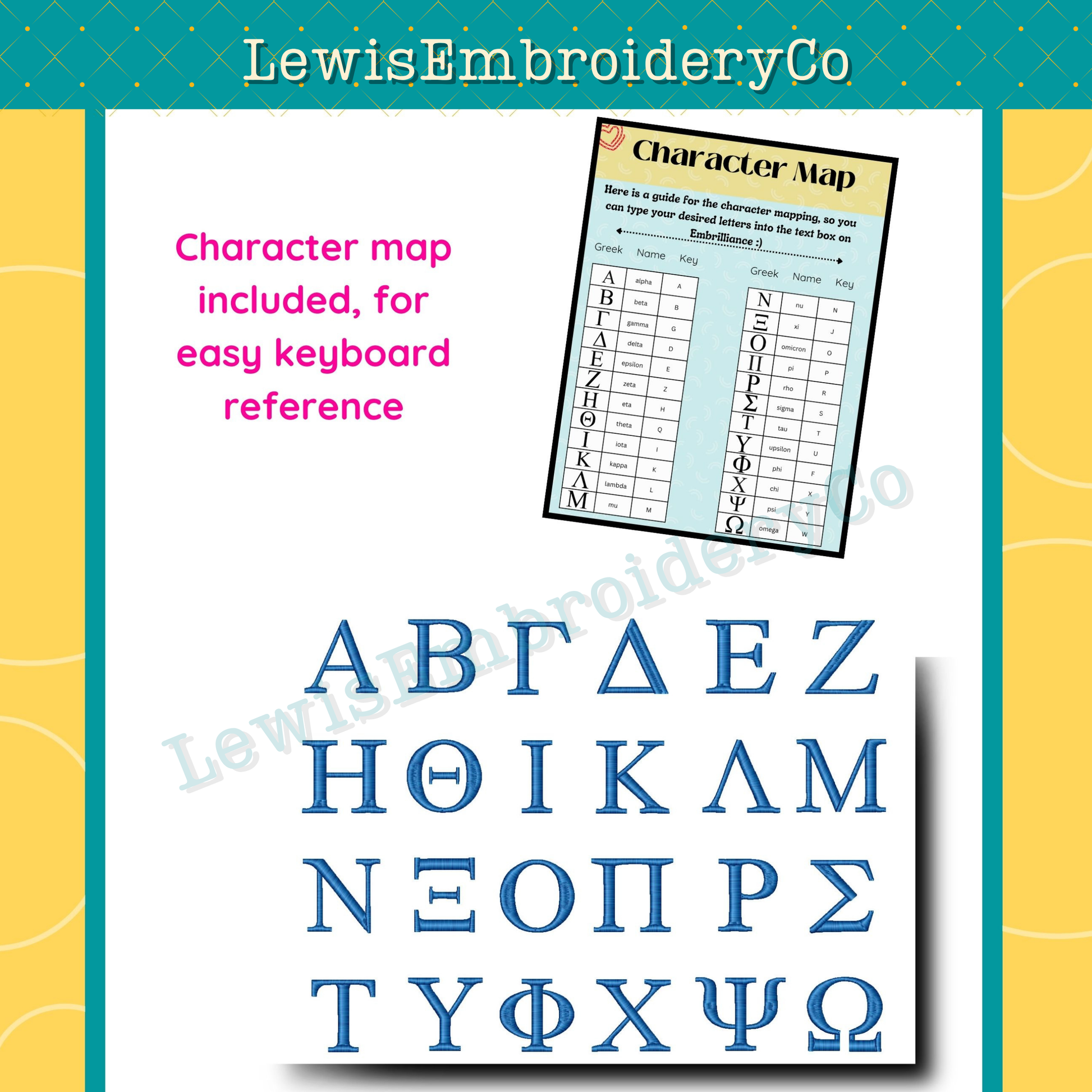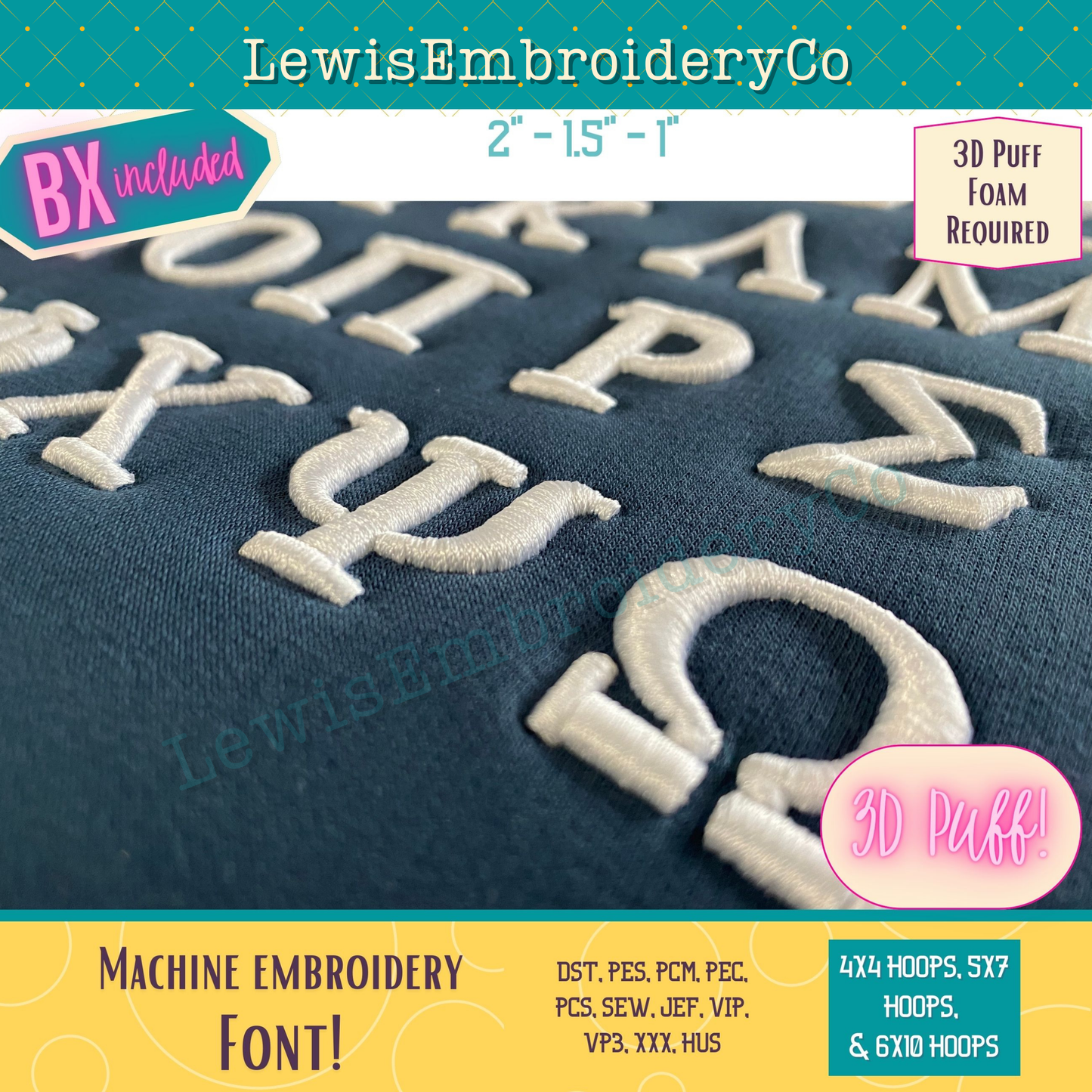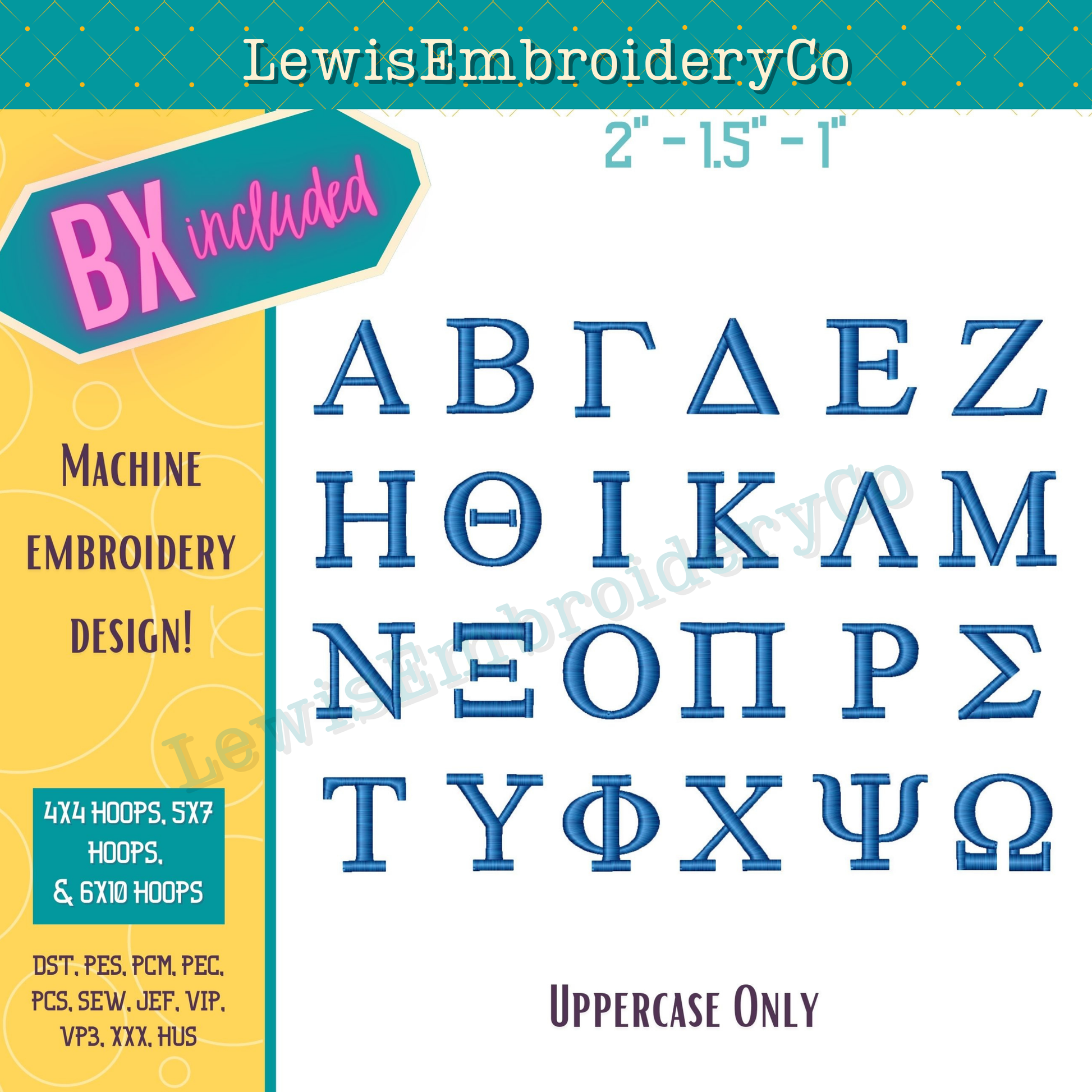
3D Puff, Greek, Machine Embroidery Font - With BX - (PDF Tutorial Included) (Copy)
Get amazing and stunning results with this Greek 3D Puff font. The puff look never goes out of style, so this is the perfect time to add these types of products to your existing collections!
- Full Greek 3D Puff, Machine Embroidery Font
Why This Font Stands Out
- Epic style that will set your products above the competition